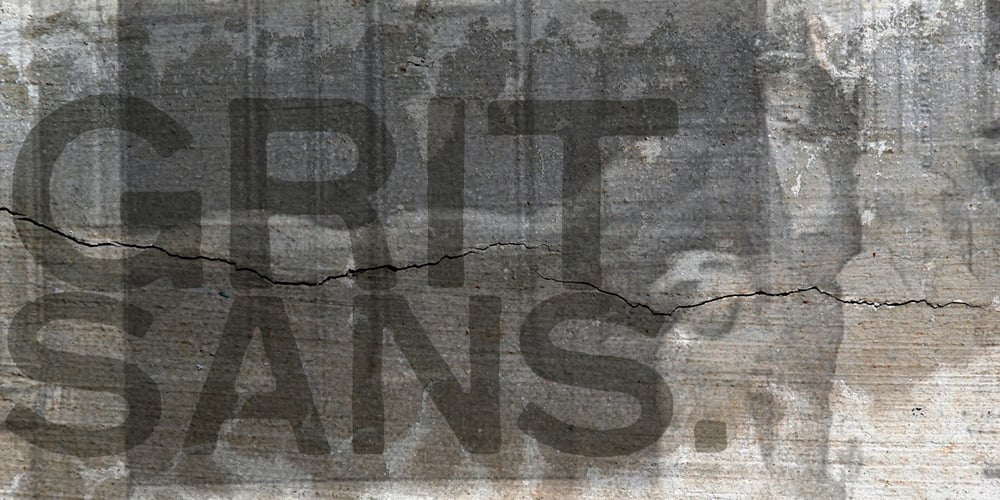
Grit Sans Font Family was designed by Nathan Williams and published by Baseline Fonts. Grit Sans contains 2 styles and family package options. Grit Sans is a font balanced enough to stand strong on the tippy-toes of its pointed “t” ascenders. Even all caps communicates calm. Dashes of whimsy in the proportionately plump X-Heights tell of the accountant drinking too much sherry at the office Christmas party, but thick, consistent strokes never lets you forget his job title. Ascenders and descenders consistently reach the same heights and depths, further attesting to the reliability of this typeface, at even very small sizes. Available in both regular and bold face, Grit Sans is a faithful complement to thin fonts with a pinch of frivolity such as Heirloom Artcraft. It is ideal in use for titles, subheadings, menus, playbills, custom stamps, logos – anywhere a solid font can speak at a volume just above all others.